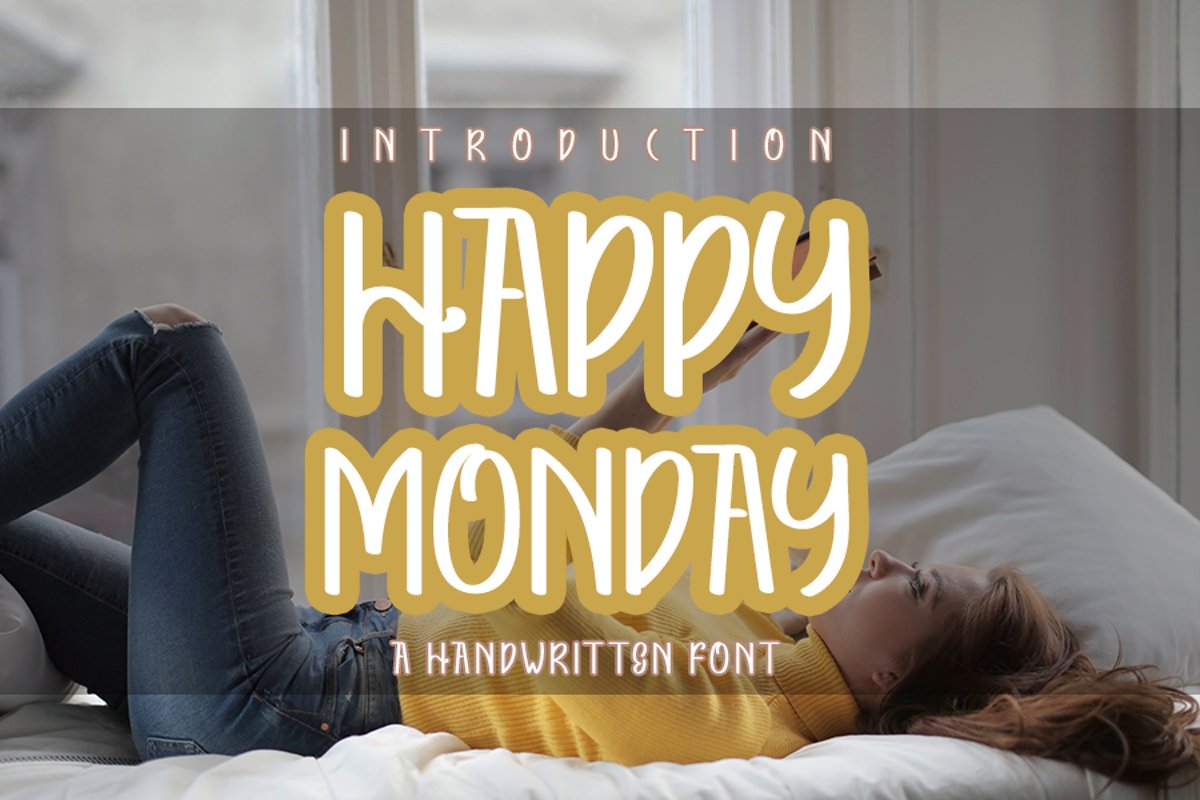
Happy Monday
Happy Monday is a joyful handwritten font. Fun and exciting, this enchanting font will turn any creative idea into a true standout!
+More than 100+ Glyphs
+More than 43 Languages
+PUA-Encoded for many alternates and ligatures